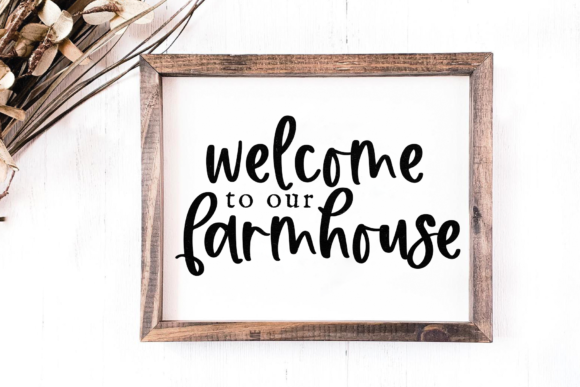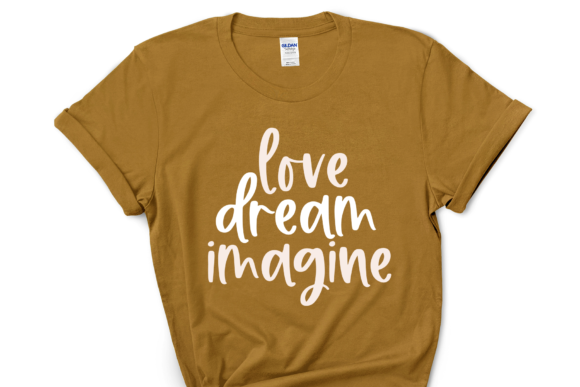
Sugarlemon Font
db-ku.com - Script & Handwritten -- Sugarlemon is a magical handwritten font carefully created with a touch of elegance. It features an incredibly classic style, while still keeping a friendly feel. Sugarlemon is the perfect font for making original and outstanding designs.